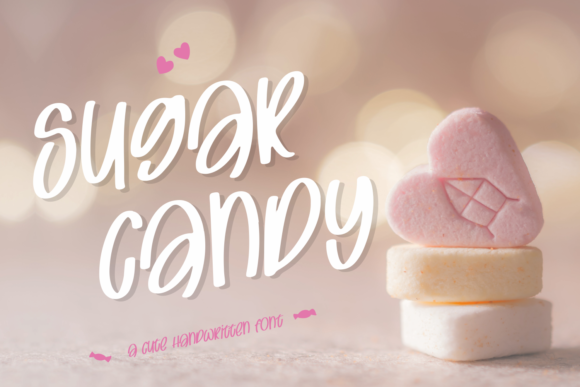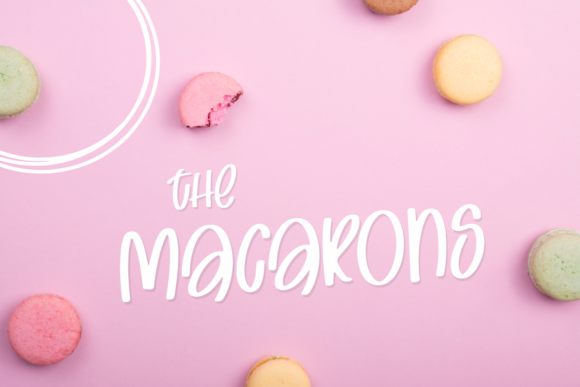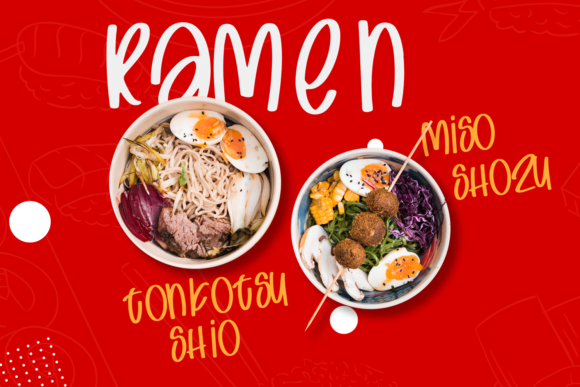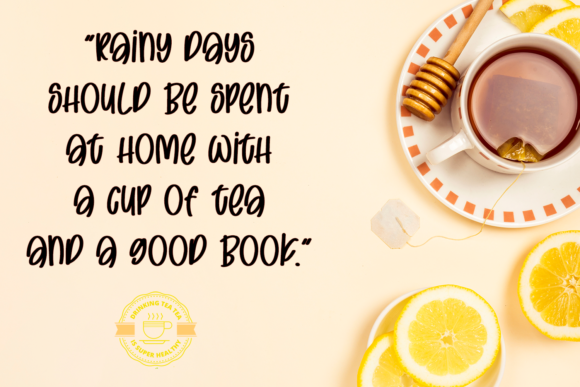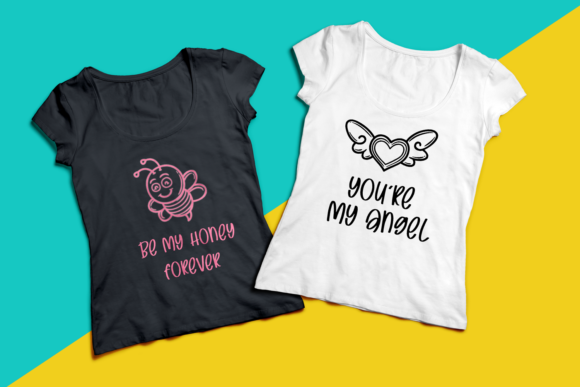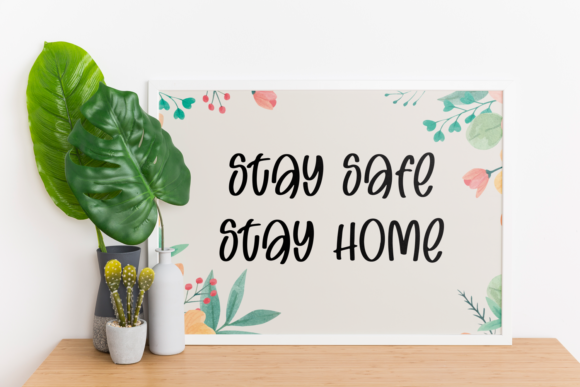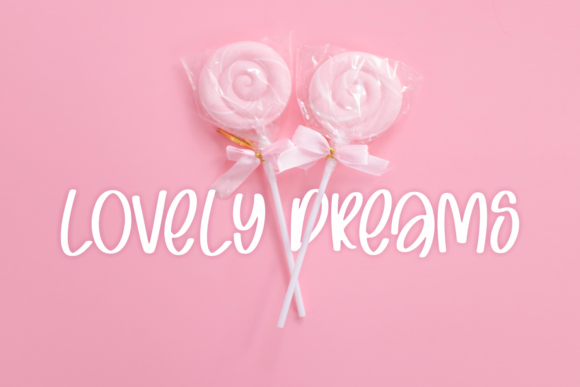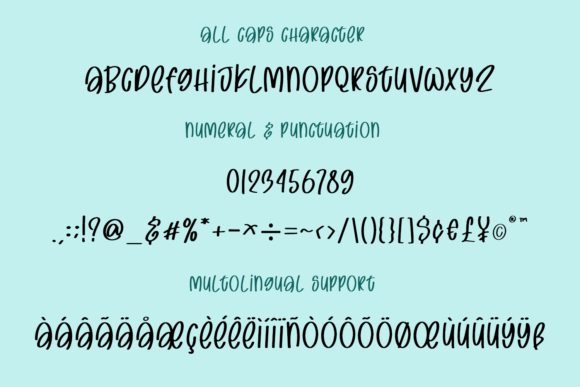
Sugar Candy Font
About Sugar Candy Font
Sugar Candy embodies fun, quirkiness and authenticity. This enchanting handwritten font will turn any creative idea into a true standout. Get creative with its playfulness, and use it to brighten up any kids and school project!